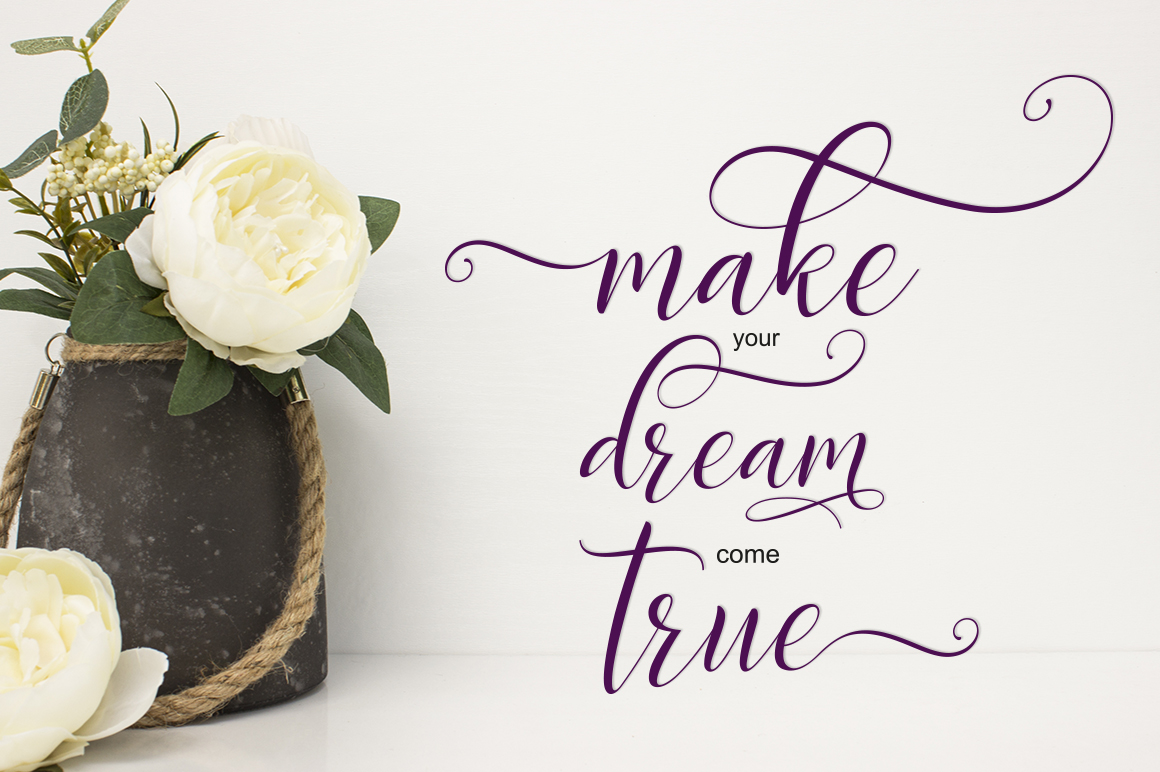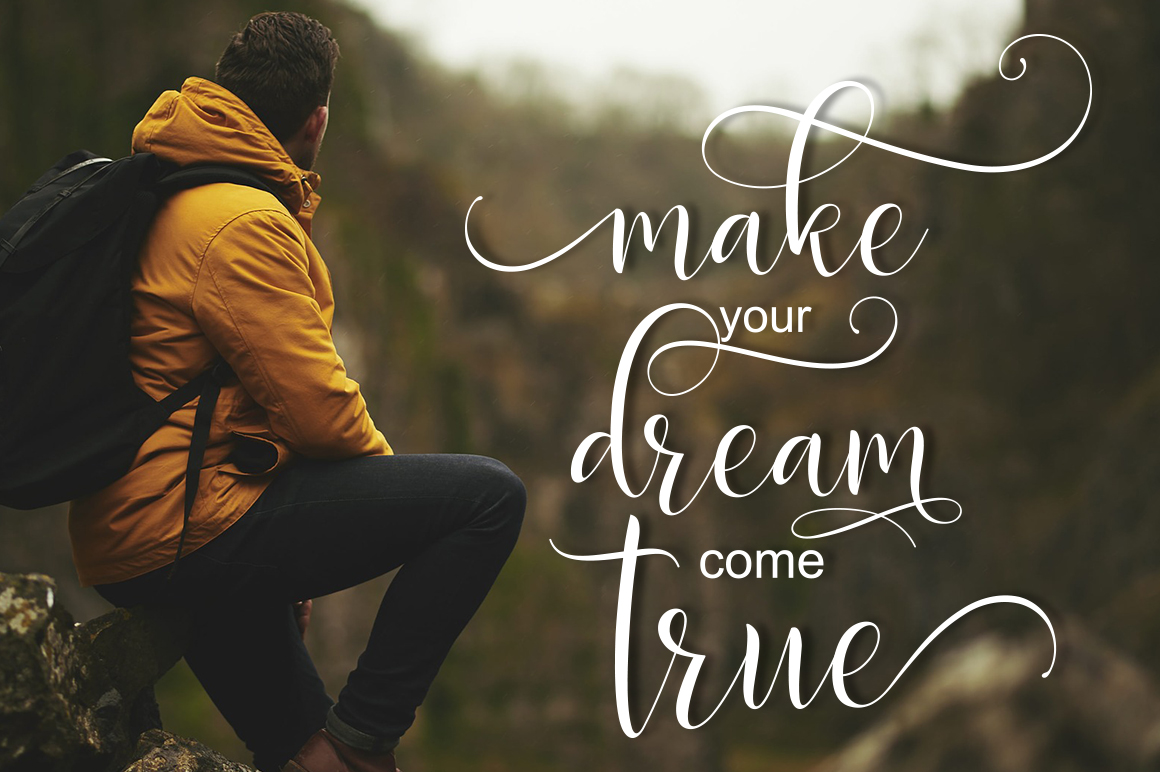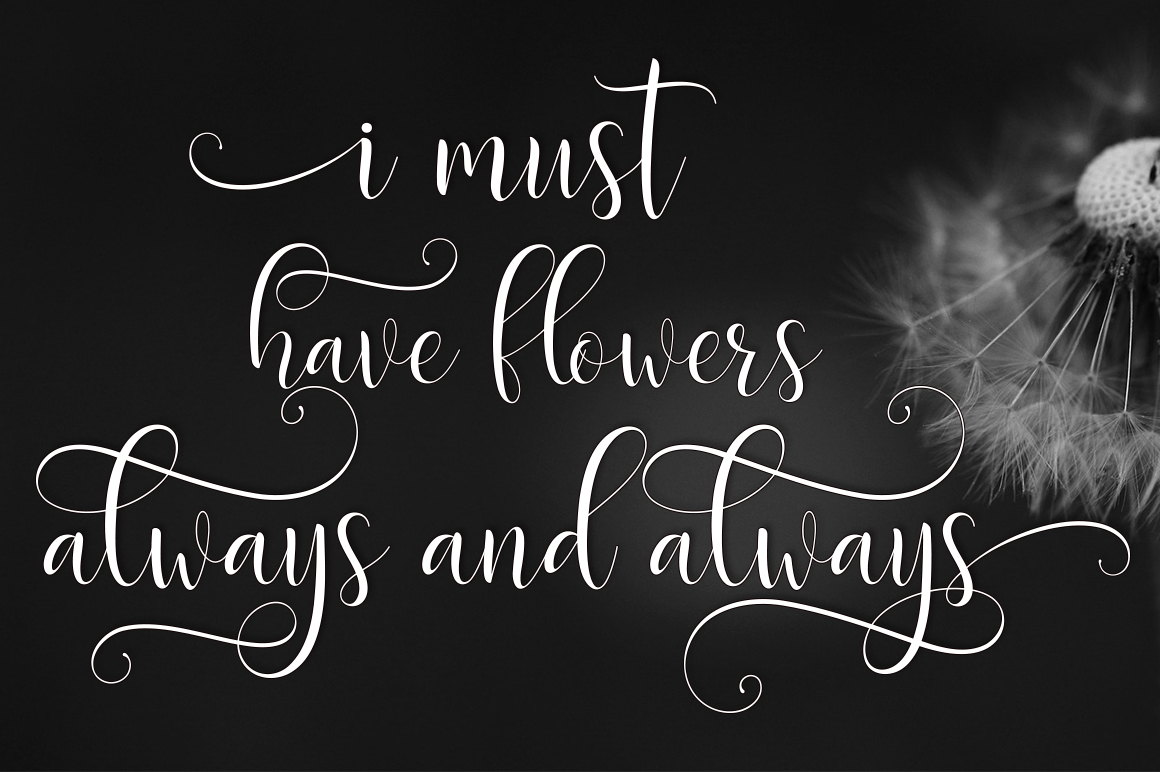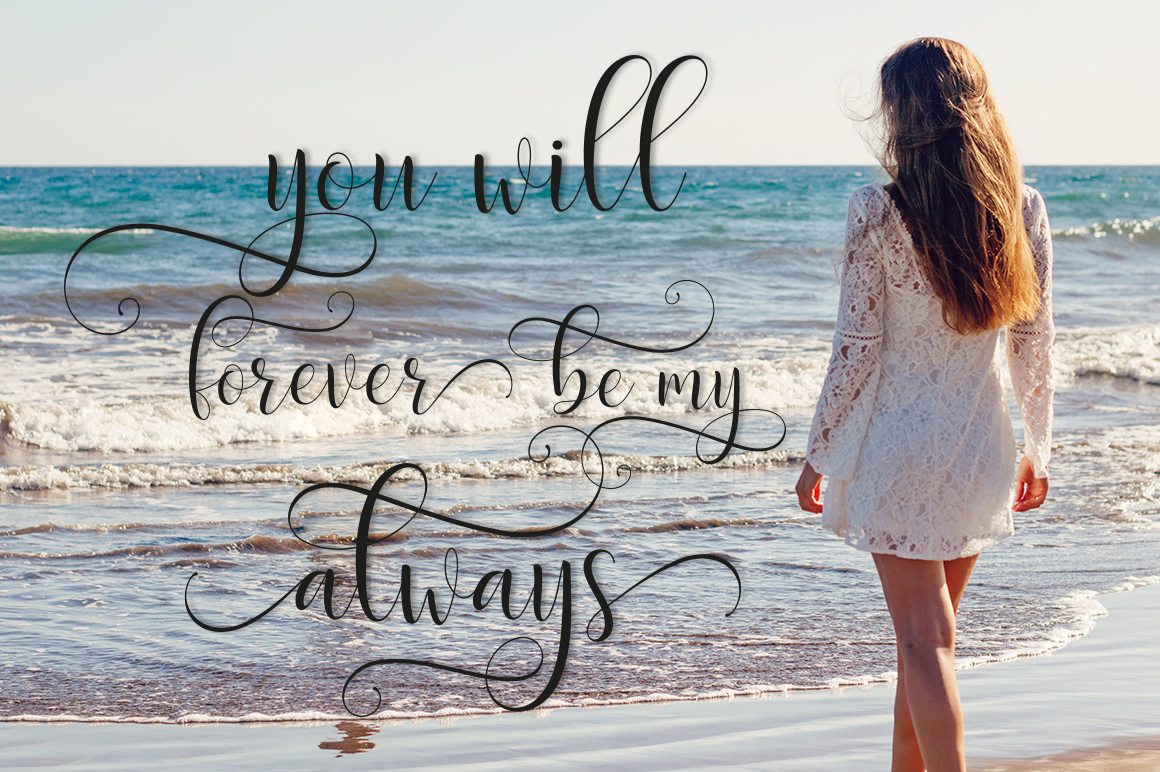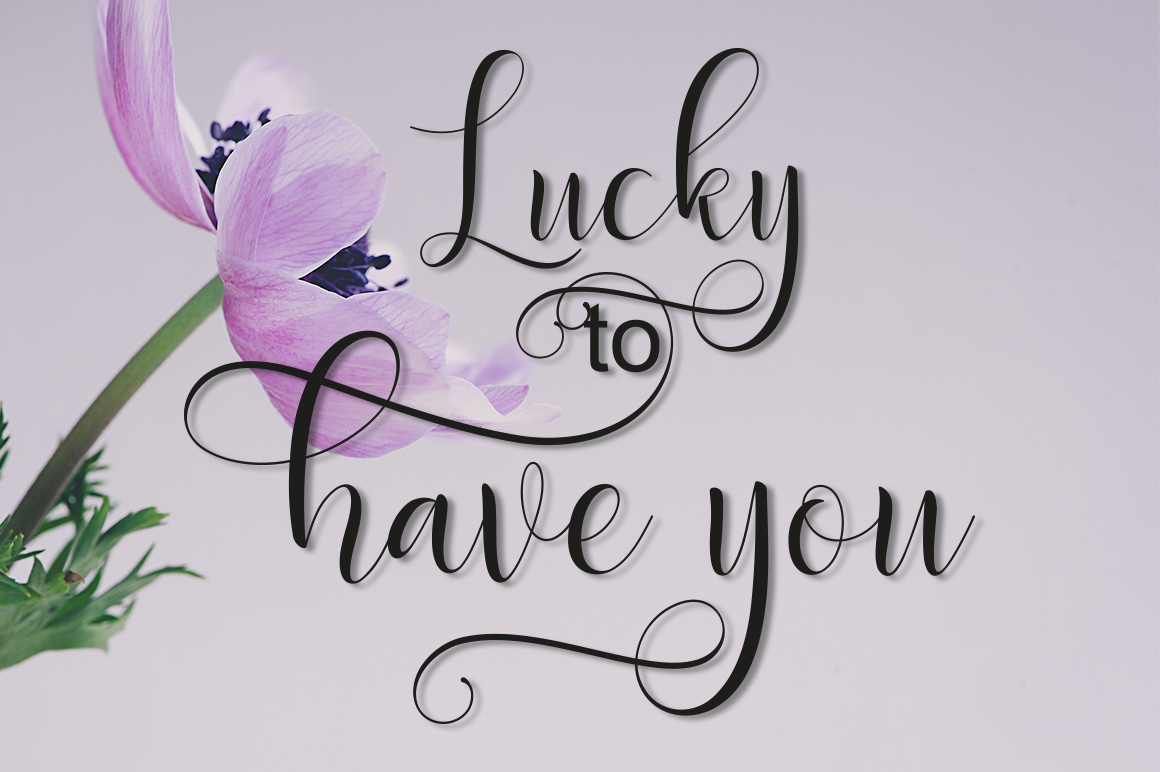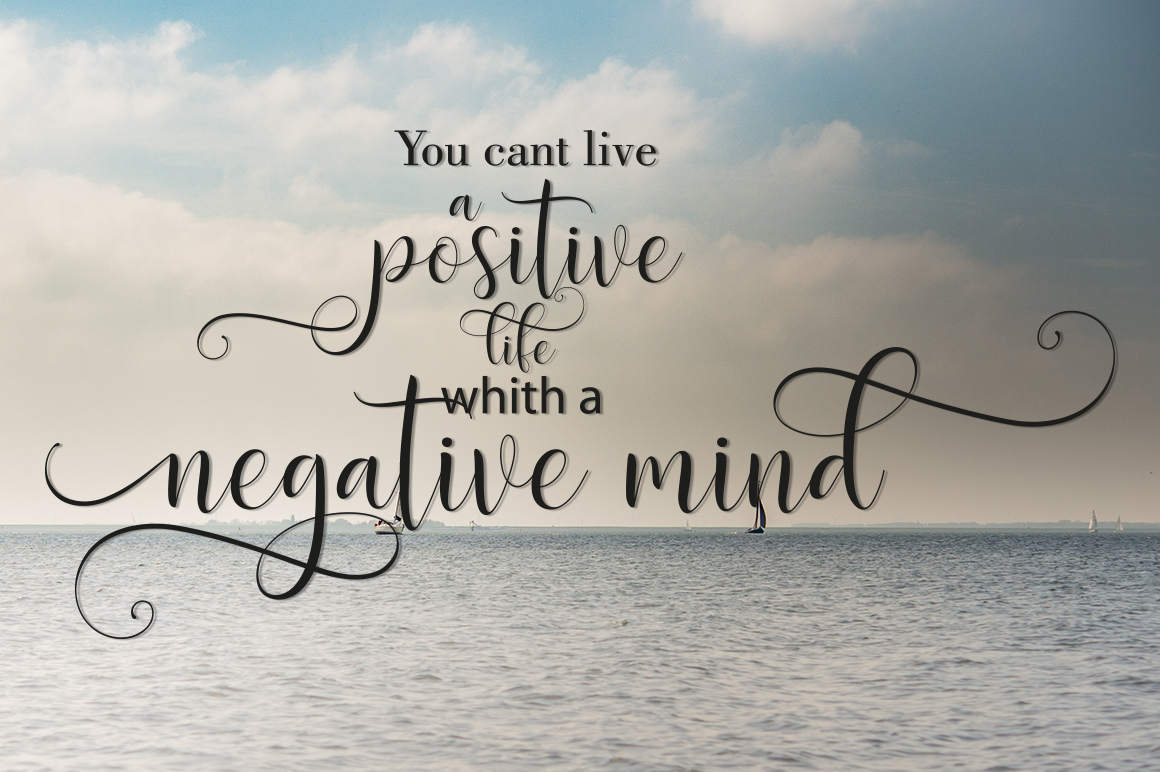
Delight Script Font: Elevate Your Designs with Elegance and Flair
What a namesake! The Delight Script is a delightful font family that is well suited to a large range of creative projects given its elegance, flourish, and legibility. This font also comes in a sans serif style so you can make fully realized designs with complementary typefaces!
Introduction to Delight Script Font
The Delight Script font is a beautiful, elegant, and highly legible typeface that has been designed to add a touch of sophistication and flair to any design project. With its flowing lines, beautiful swashes, and classic style, this font is perfect for a wide range of applications, from wedding invitations and event branding to packaging, advertising, and digital media.
Key Features of Delight Script Font
- Elegant and Refined Design: The Delight Script font boasts an elegant and refined design that exudes sophistication and luxury. Its flowing lines and beautiful swashes make it perfect for designs that require a touch of glamour and flair.
- Highly Legible: Despite its elegant design, the Delight Script font is highly legible, making it suitable for use in a wide range of applications, from body text to headings and titles.
- Sans Serif Style: To provide greater flexibility and versatility, the Delight Script font also comes in a sans serif style. This allows designers to create fully realized designs with complementary typefaces that work harmoniously together.
- Wide Range of Uses: The Delight Script font is suitable for use in a wide range of creative projects, including wedding invitations, event branding, packaging, advertising, digital media, and more.
Benefits of Using Delight Script Font
There are many benefits to using the Delight Script font in your designs. Some of the key advantages include:
- Instant Elegance: With the Delight Script font, you can add a touch of elegance and sophistication to your designs instantly. Its refined design and beautiful swashes make it perfect for creating luxurious and high-end branding.
- Improved Readability: The Delight Script font is highly legible, which means that it can help improve the readability of your text. This is especially important for body text, where clarity and legibility are essential.
- Flexibility and Versatility: The Delight Script font is available in both script and sans serif styles, which provides designers with greater flexibility and versatility when it comes to creating designs.
- Unique and Creative: The Delight Script font is a unique and creative typeface that can help your designs stand out from the crowd. Its elegant design and beautiful swashes make it perfect for designs that require a touch of flair and personality.
Tips for Using Delight Script Font
To get the most out of the Delight Script font, here are some tips to keep in mind:
- Use it for Headings and Titles: The Delight Script font is perfect for use in headings and titles, where its elegant design and beautiful swashes can add a touch of sophistication and flair.
- Pair it with Sans Serif Fonts: To create a harmonious and balanced design, pair the Delight Script font with a sans serif font, such as the Delight Sans font.
- Experiment with Swashes: The Delight Script font comes with a range of beautiful swashes that can add a touch of elegance and flair to your designs. Experiment with different swashes to find the one that works best for your design.
- Use it for Branding and Packaging: The Delight Script font is perfect for use in branding and packaging, where its elegant design and highly legible style can help create a luxurious and high-end feel.
In conclusion, the Delight Script font is a beautiful, elegant, and highly legible typeface that is well suited to a wide range of creative projects. With its flowing lines, beautiful swashes, and classic style, this font is perfect for designs that require a touch of sophistication and flair. Whether you’re a designer, craftsperson, or DIY enthusiast, the Delight Script font is a great choice for any project that requires elegance, refinement, and personality.